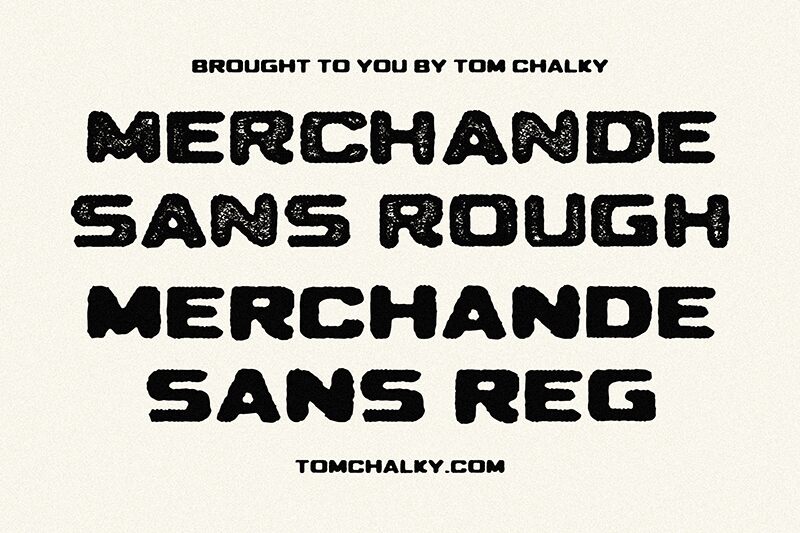
Merchande Print Sans font by Tom Chalky is a display typeface with a distinct eroded style and a rugged worn appearance. Its bold weight in combination with an expanded width gives the font some extra force which makes its presence even more visible in your design works. Built with industrial and vintage influences, its distressed charm can be noticed immediately as it sets a nostalgic mood for whatever you use it.
The free font's use cases include, but are not limited to, t-shirts, posters, mugs, notebooks, planners, journals, menus, banners, signs and book covers. It certainly fits paper-based projects perfectly; however it would not look bad on metal surfaces either.
Merchande Print Sans Regular